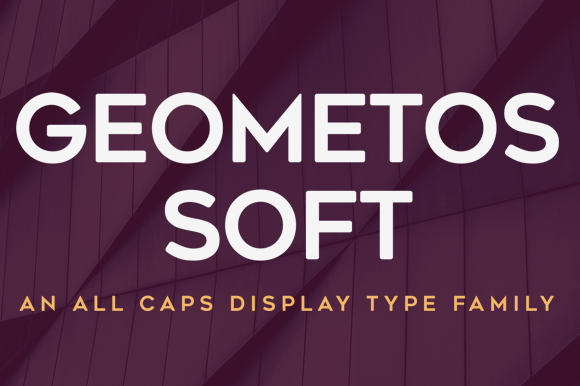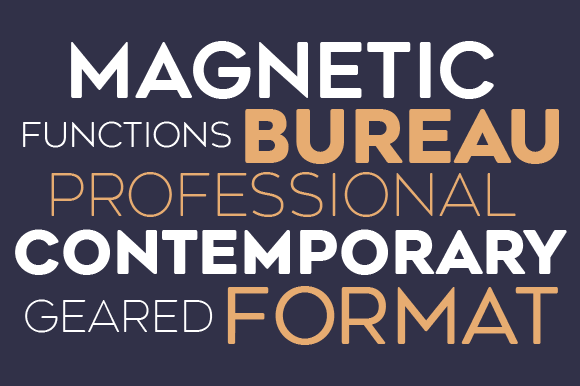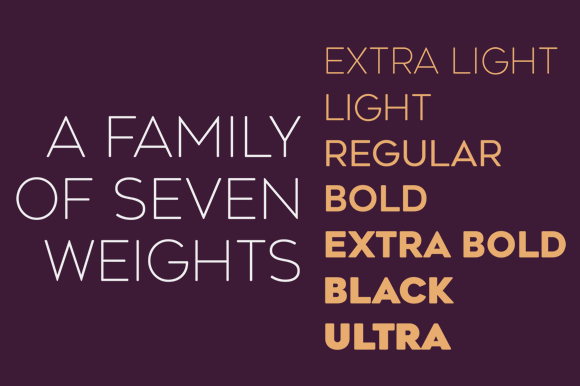
Geometos Soft Font
About the Geometos Soft Font
Discover the charm of Geometos Soft Font. This font is a perfect blend of modern aesthetics and classic appeal. The Geometos soft font is a new version of the Geometos typeface.
It’s a stunning sans serif font with strong bold letters, and this time they come with soft rounded edges.
Geometos Soft excels in headlines, branding applications, and short-form text on posters or packaging. Its bold, yet softened forms command attention without being aggressive. It’s less suitable for body copy or UI elements where high legibility over long passages is crucial; the weight may prove tiring.
The font’s personality is confident and approachable, a blend of strength and approachability. It would be ideal for brands conveying modern sophistication, such as high-end fashion, technology, or architectural firms.
Pairing Geometos Soft with a clean sans-serif like Lato for body text provides excellent contrast and readability. For a more playful feel, a rounded script font like Pacifico could be used for accents. Alternatively, a subtle serif like Merriweather can add a touch of classic elegance.
Geometos Soft Font Usage Examples
Geometos Soft Font Example